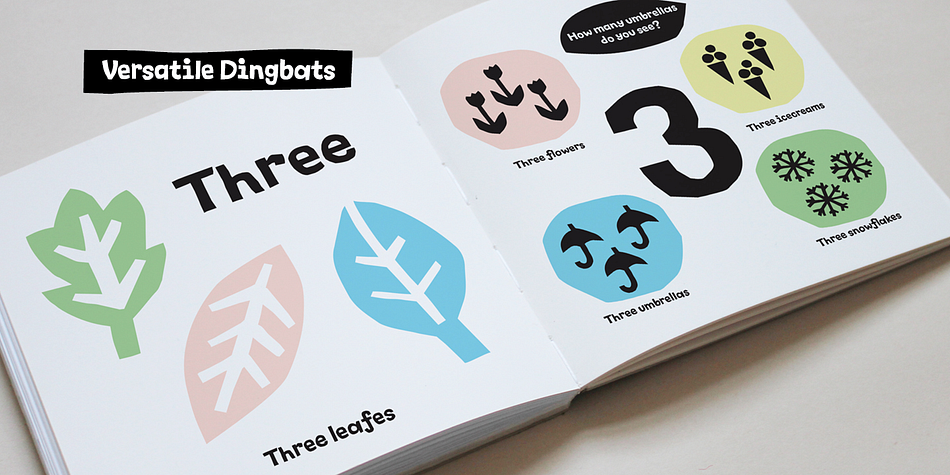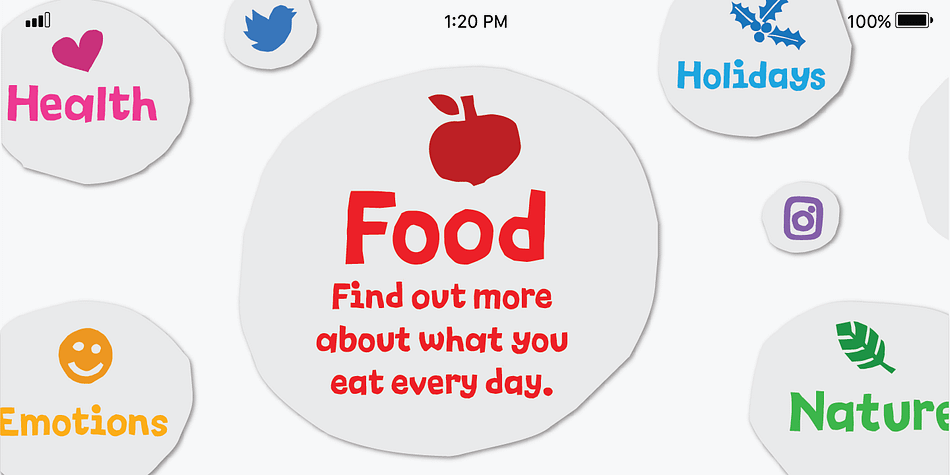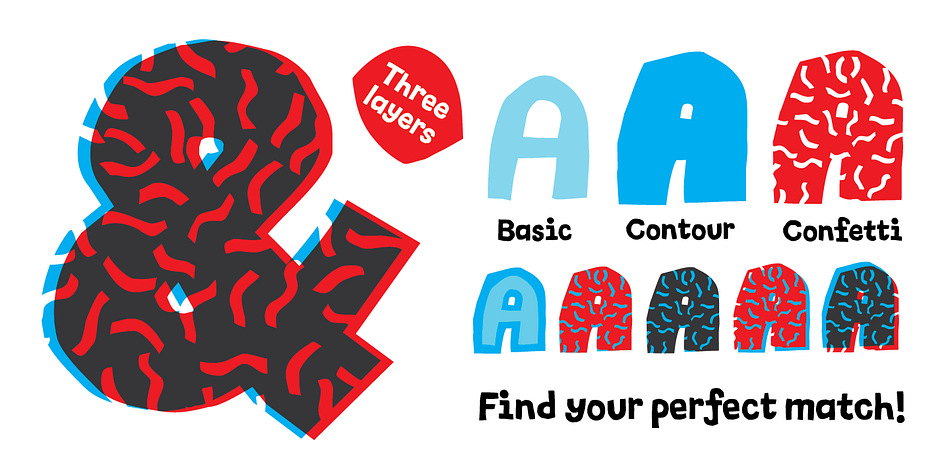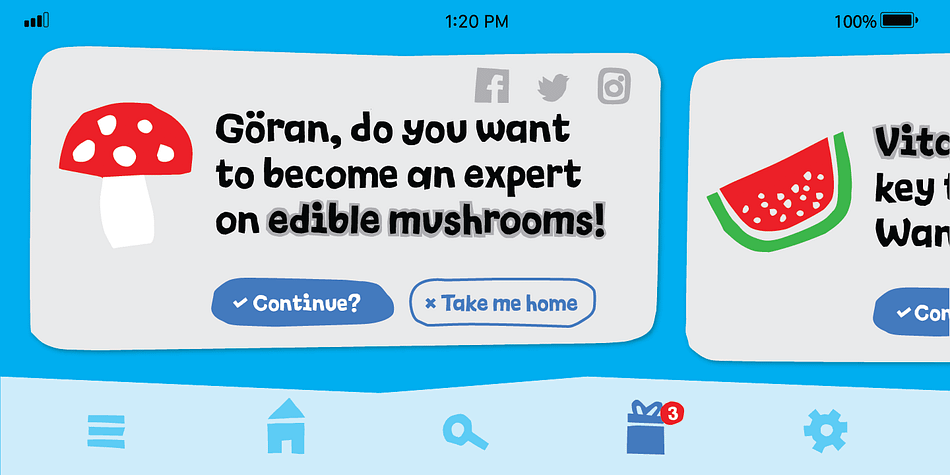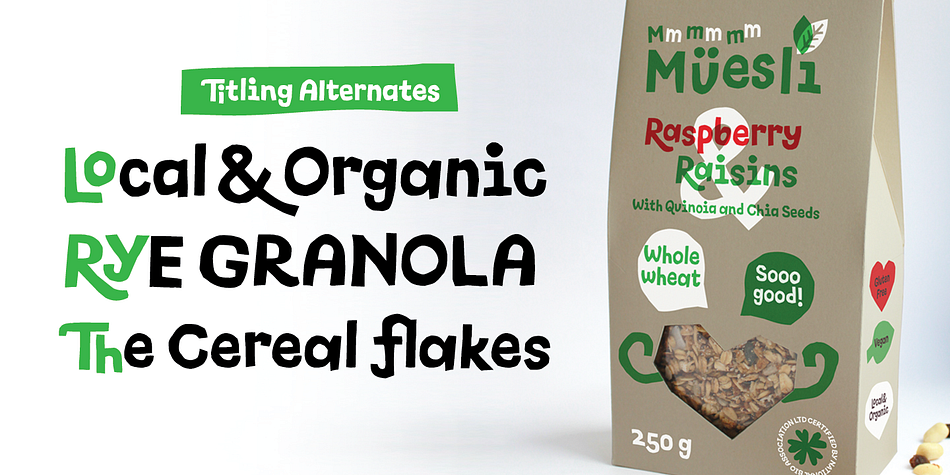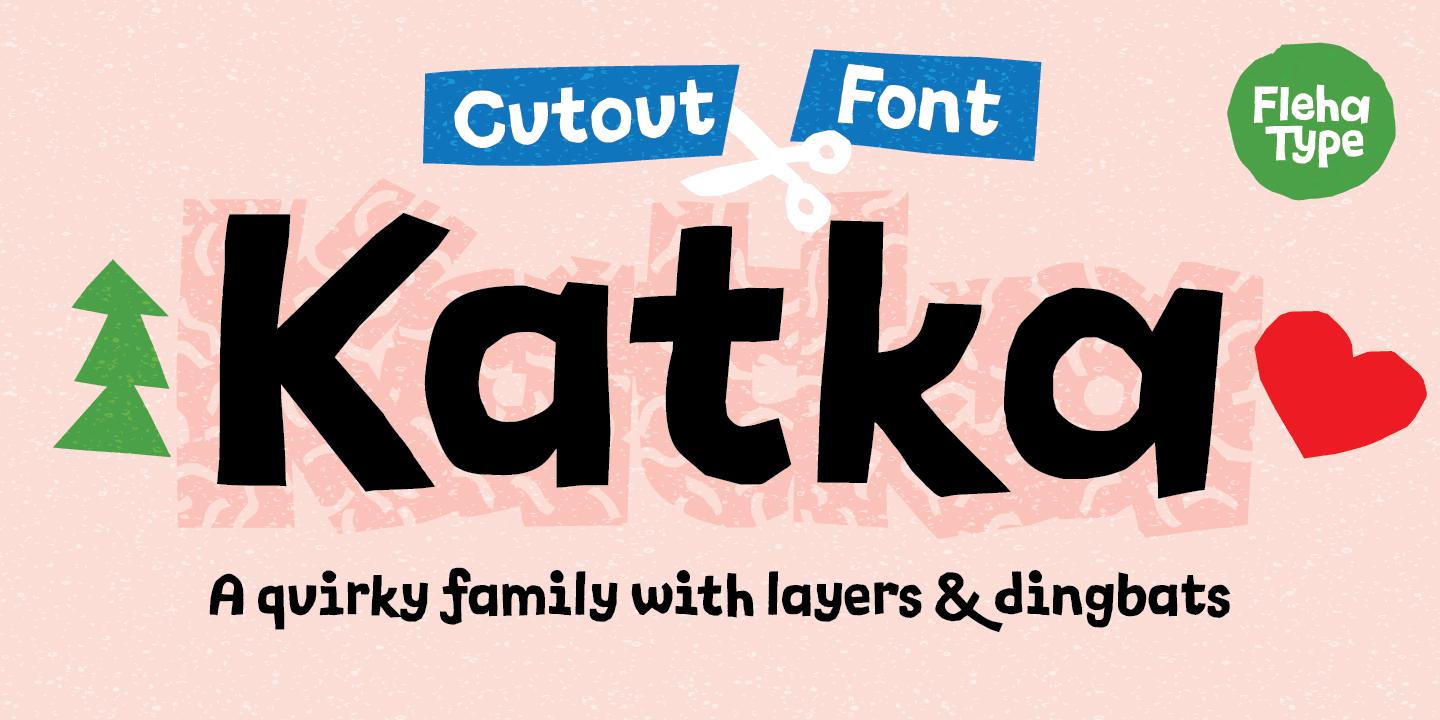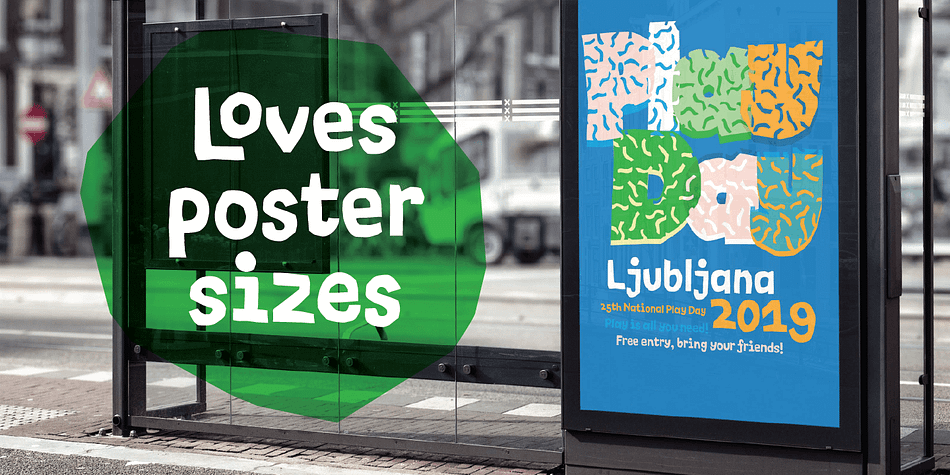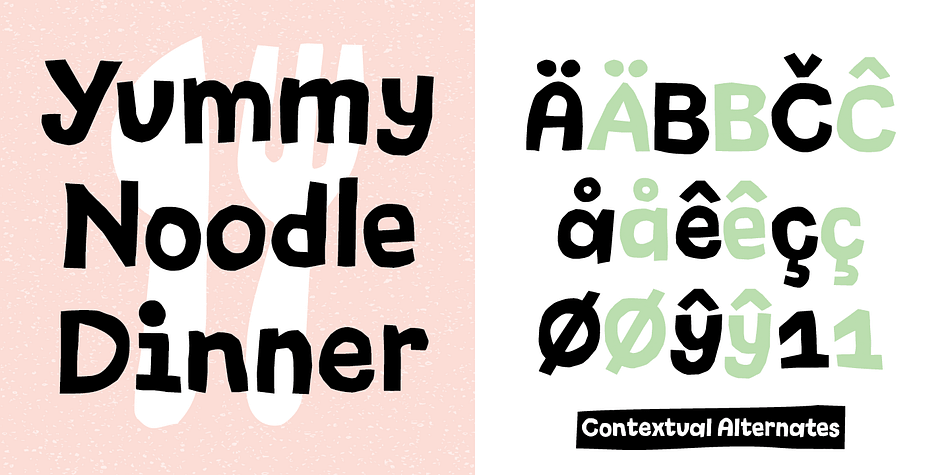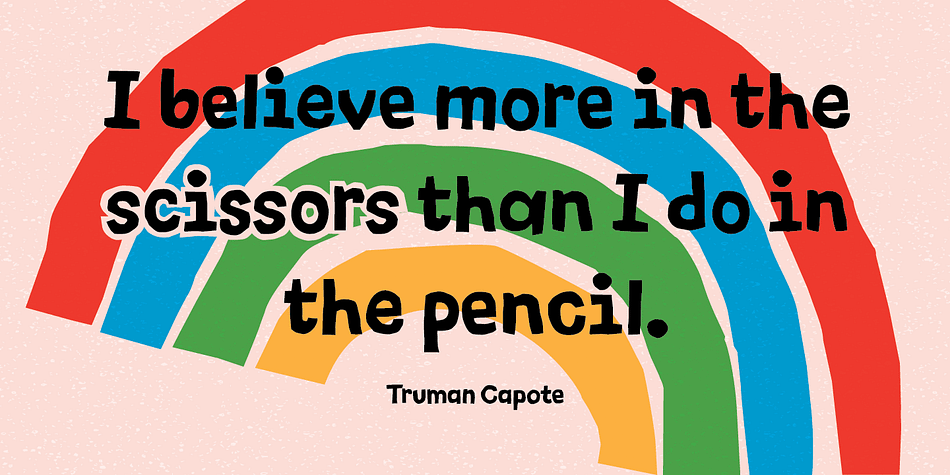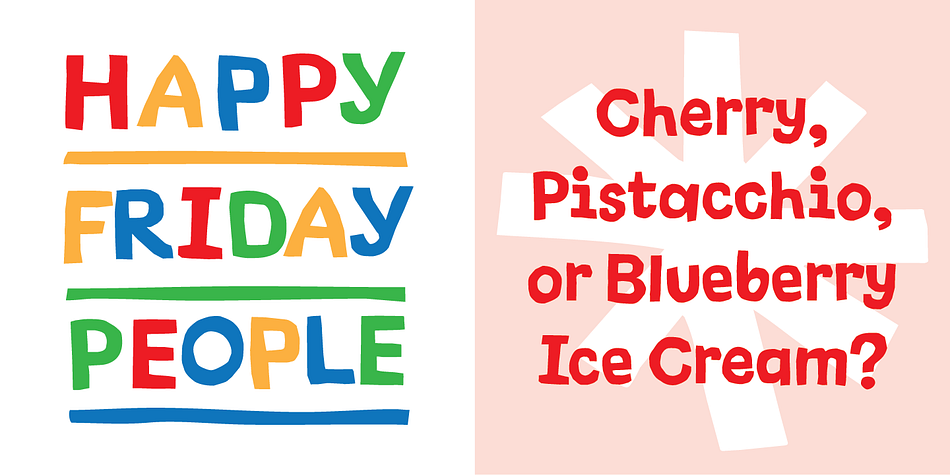
Designed by Teja Smrekar, Katka is a hand display font family. This typeface has three styles and was published by Flehatype.
Katka is a informal playful typeface entirely cut-out of paper. With two stylistic variants for each letter it enables your text to appear hand-made.
Three layers of the type family – Basic, Contour and Confetti – give its users plenty of opportunity for creativity. By making use of its dingbats and icons you can create distinctive user interfaces, social media campaigns or festive designs. Katka feels at home in branding projects, editorial use, children’s books and packaging.